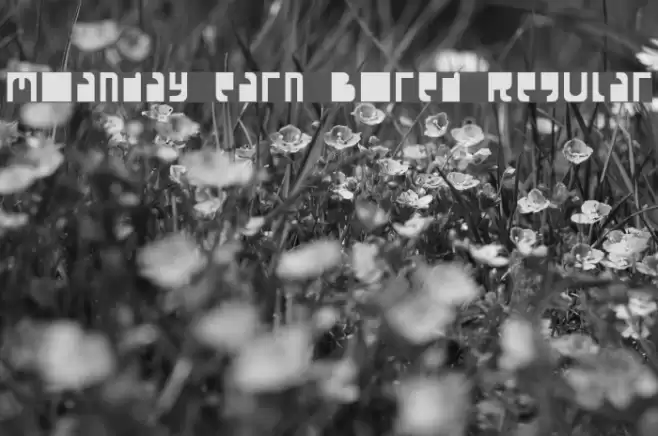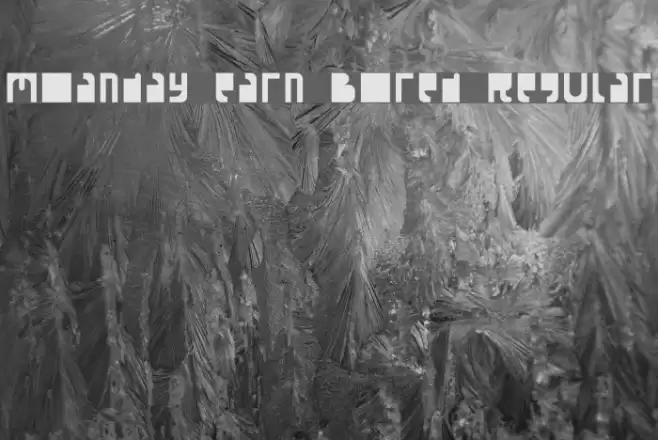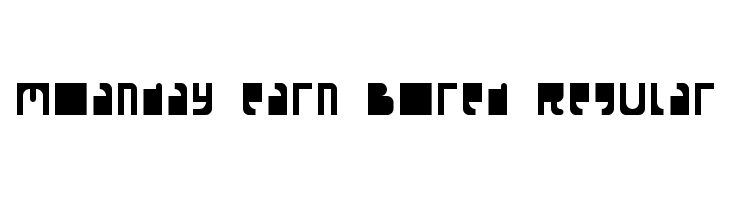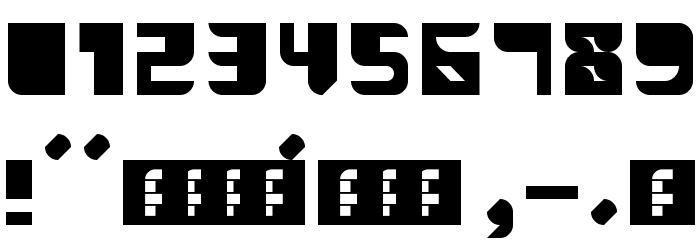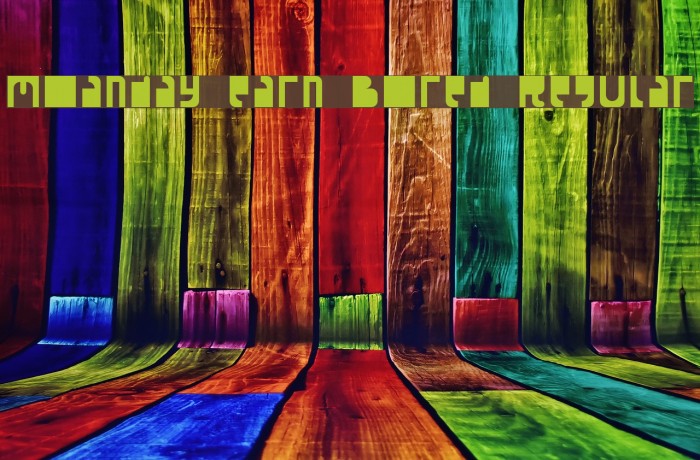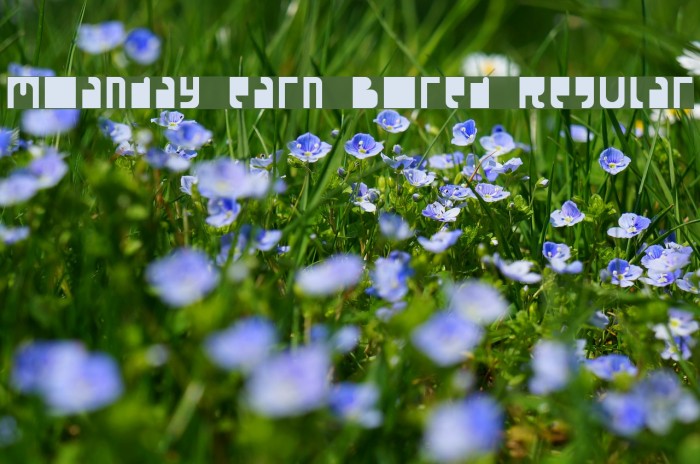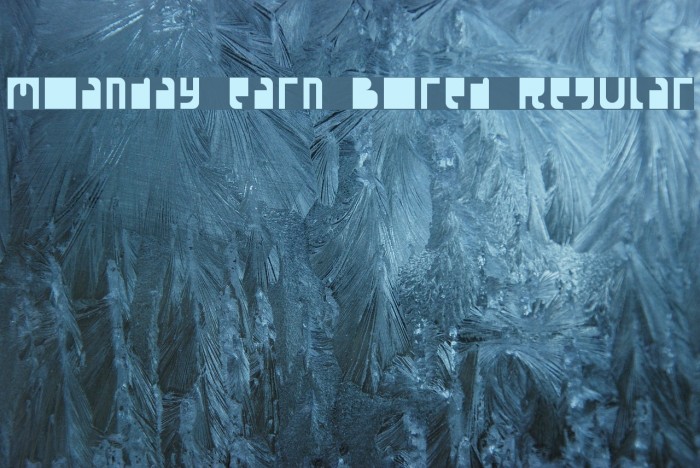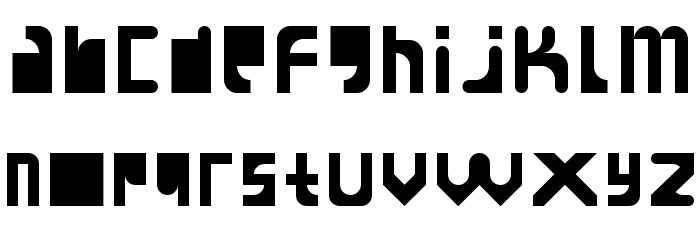
Moanday earn Bored Regular Font
Moanday earn Bored Regular Description
This font exhibits a bold and geometric style, characterized by its blocky and angular letterforms. The uppercase and lowercase letters share a consistent design, with sharp edges and a uniform thickness throughout. The numerals and special characters maintain this geometric aesthetic, creating a cohesive look. The font's distinct style is both modern and futuristic, making it stand out in any design. Its strong presence and unique shapes make it suitable for attention-grabbing headlines and logos.
A bold, geometric font with angular letterforms and a modern, futuristic style from Uncategorized fonts.
- Proposed Projects: Ideal for branding, posters, album covers, and any project requiring a bold, modern aesthetic.